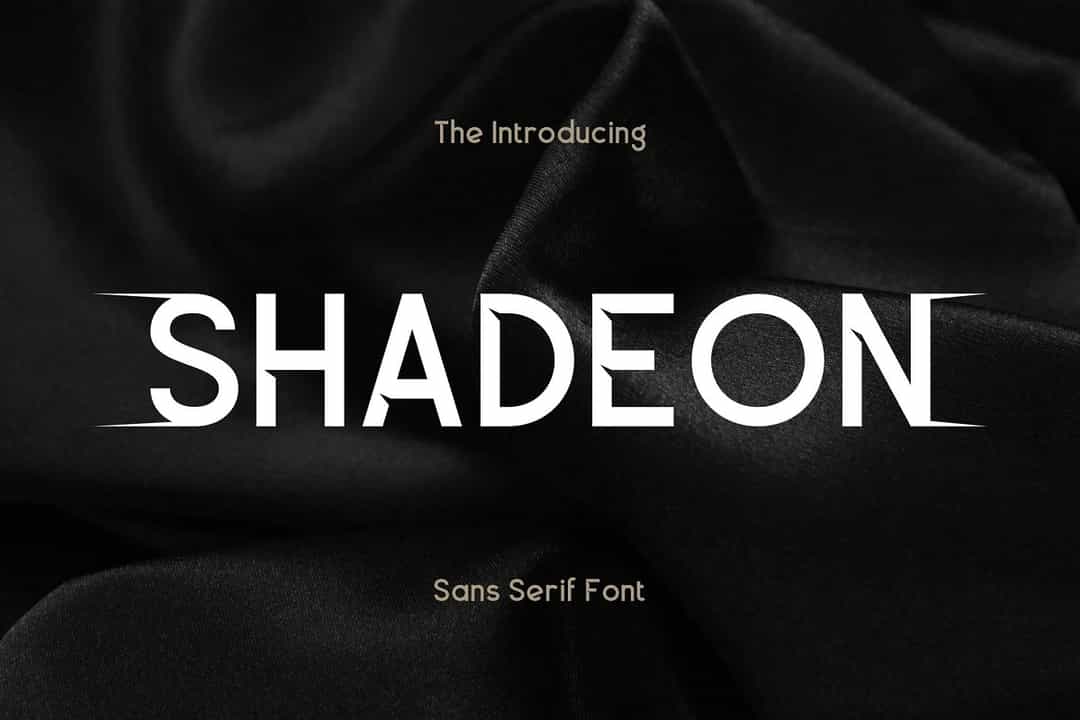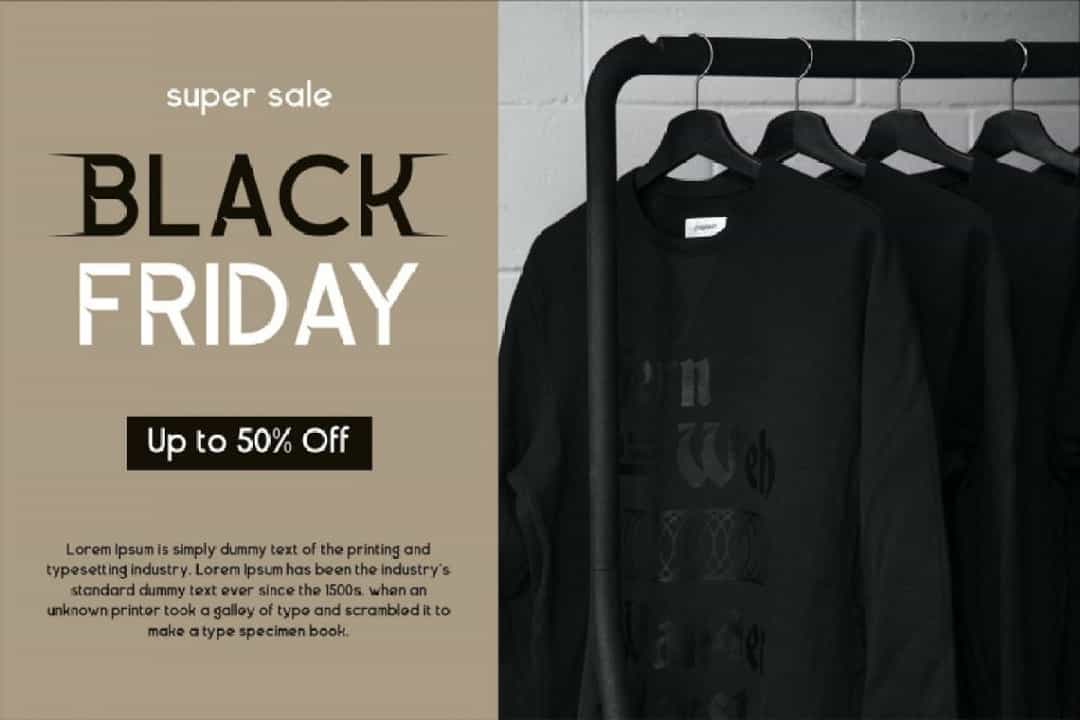
Shadeon Font by Storytype is an eye-catching sans serif font designed with timeless appeal, characterized by a modernist and distinctive appearance. Ideal for logo design, movie and book titles, fashion label clothing magazines lettering as well as quotes. This font makes an impactful statement with its contemporary yet classic aesthetic and design features.